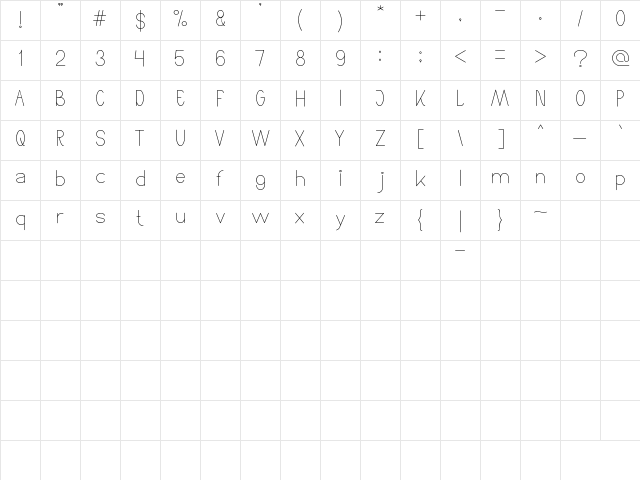
High Thin LIGHT Regular Free Font
High Thin LIGHT Regular
Design Context for High Thin LIGHT
High Thin LIGHT is a composed and adaptable typeface that performs quietly and consistently across a wide range of design contexts. Its slender proportions lend an understated elegance to any composition.